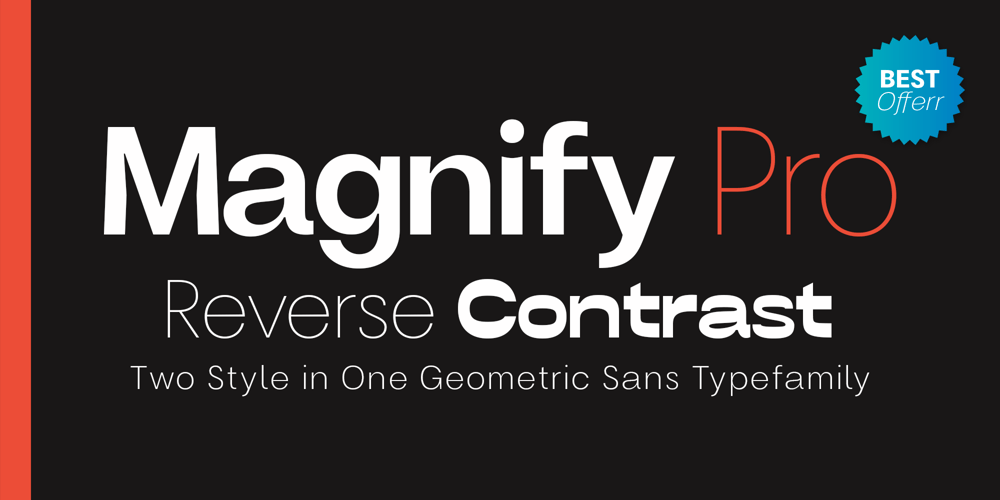
Magnify PRO
Magnify PRO font
Magnify PRO Font Family was designed by Faldy Kudo and published by XdCreative. Magnify PRO contains 20 styles and family package options. About Magnify Pro Geometric sans 2 Style in 1.Magnify PRO Geometric sans is the latest version of “Magnify” by. Faldykudo. Comes up with more complete language support and features, including ink-trap and reverse contrast will add more different taste & style to the art of modern typography.Magnify PRO has two style in one font, normal & inverse contrast.If you are like normal: just type with regular letters,if you are like reverse contrast: just access your opentype features to find the alternate letters.Thank You.